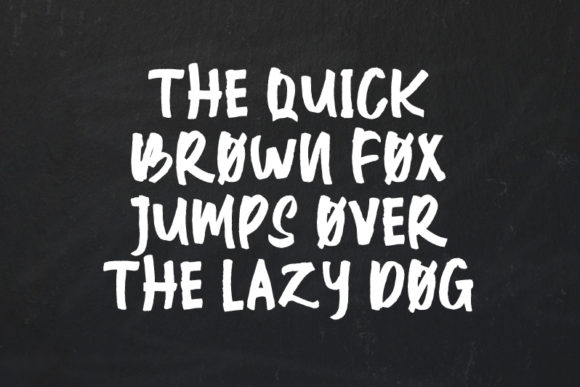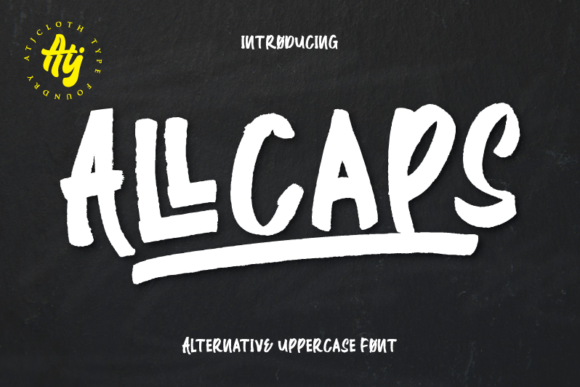
The Power of All Caps Font: Adding a Rough Twist to Your Designs
I’ll never forget the time I was working on a project for a client who wanted a bold, edgy look. I had spent hours browsing through font libraries, but nothing seemed quite right. That’s when I stumbled upon AllCaps, a textured brush font with a cool vibe that instantly caught my attention. In this article, I’ll share my experience with AllCaps, its features, and how to make the most of it in your designs.
An Honest Review of AllCaps
So, what do I love about AllCaps? 🤔 Here are a few things that make it stand out:
- ✨ Unique texture: The rough, brush-like texture adds a distinctive touch to any design.
- ✅ Easy to read: Despite its textured look, AllCaps remains surprisingly legible, even at smaller font sizes.
- 💡 Versatile: This font can be used for a wide range of projects, from posters and flyers to social media graphics and more.
Of course, no font is perfect, and AllCaps has a few small quirks:
- ⚠️ Limited formal use: Due to its textured, informal look, AllCaps might not be the best choice for very formal or corporate designs.
- 🤔 Glyph limitations: Some users have reported that the font could benefit from more extensive glyph support.
- Experiment with OpenType features, such as stylistic alternates and glyphs, to customize your text.
One of the best things about AllCaps is its support for OpenType features and glyphs. Here are a few tips on how to make the most of them:
- Stylistic alternates: Experiment with different stylistic alternates to add more variety to your text.
- Glyphs: Use glyphs to add special characters and ornaments to your design.
The Backstory of AllCaps
AllCaps was designed with the intention of creating a font that would add a rough, edgy twist to any design. The designer wanted to create a font that would be both bold and expressive, with a unique texture that would set it apart from other fonts.
| Font Name | All Caps Font |
| Author | Atjcloth Studio |
| What is AllCaps? | AllCaps is a textured brush font with a cool, edgy vibe. |
| Is AllCaps suitable for formal designs? | No, due to its textured look, AllCaps is best suited for informal designs. |
| Does AllCaps support OpenType features? | Yes, AllCaps supports OpenType features, including stylistic alternates and glyphs. |